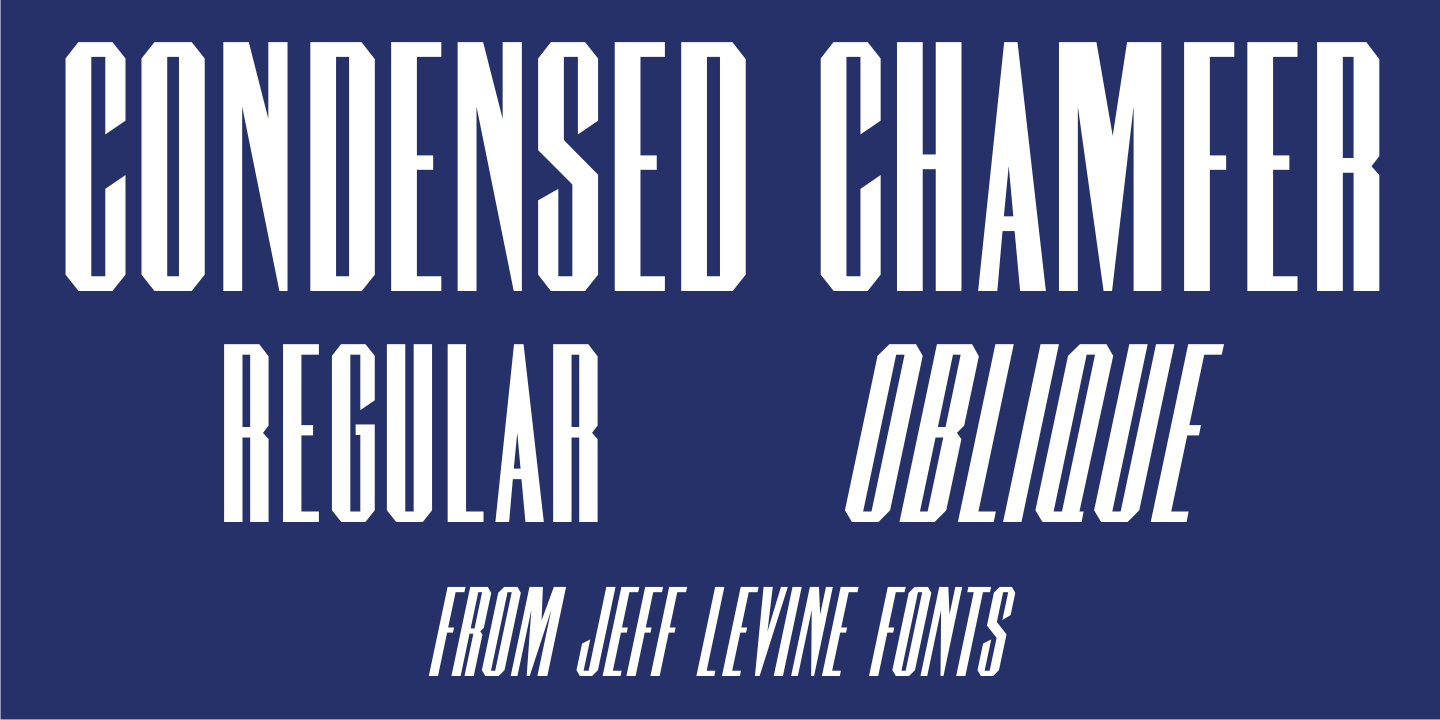
Condensed Chamfer
Sheet music published in the 1860s for 'The Soldier's Chorus” [from the Gounod opera 'Faust”] had the title and the arranger's name hand lettered in a bold, condensed chamfer font.
This was the basis for Condensed Chamfer JNL, which is available in both regular and oblique versions.